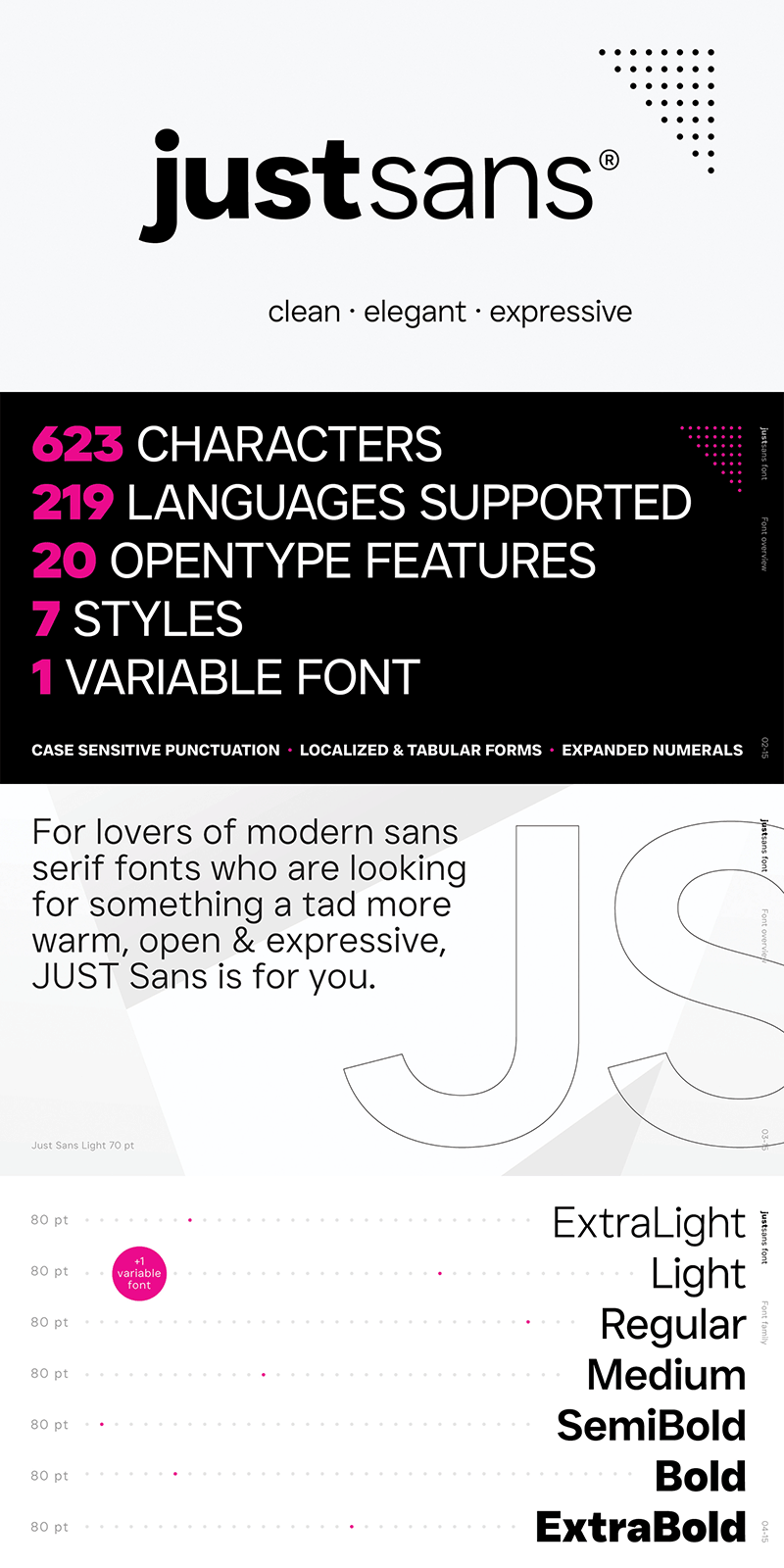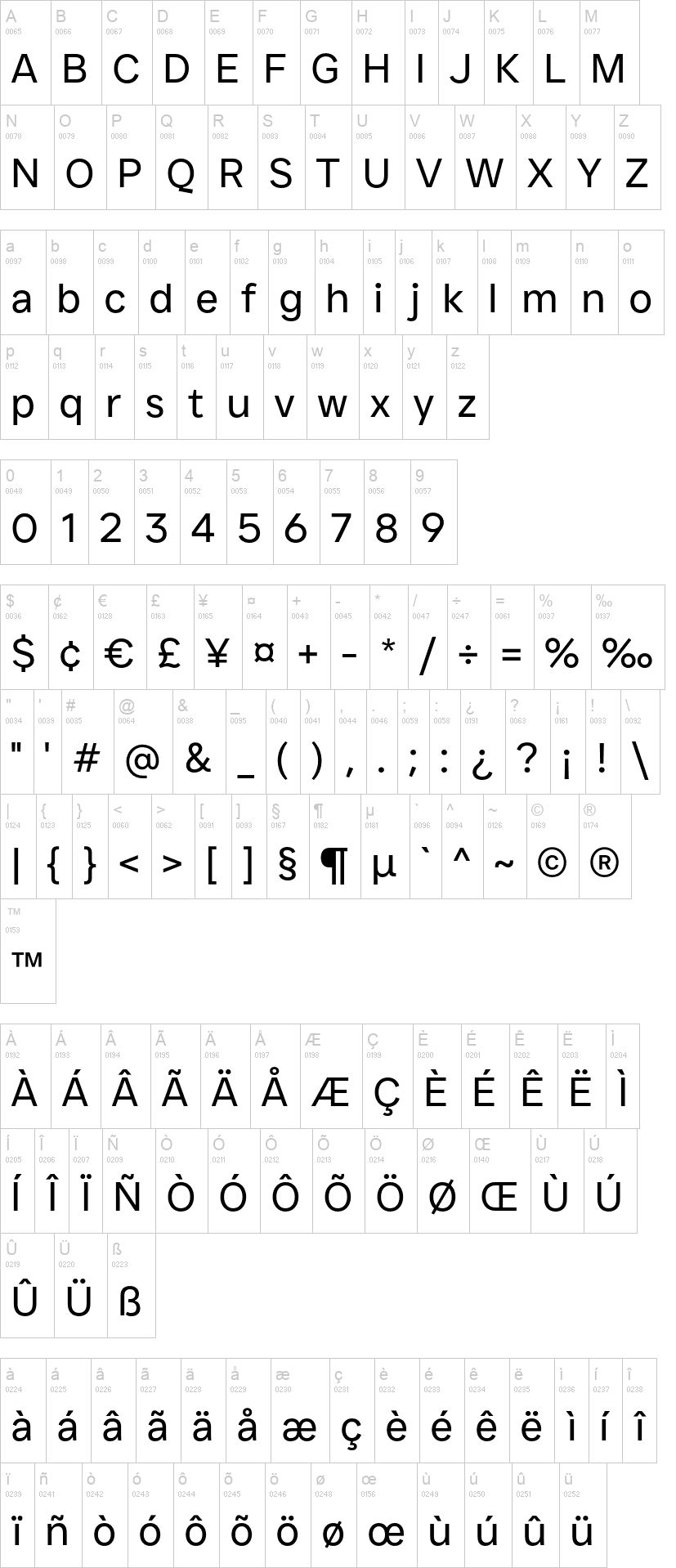
JUST Sans ExBold.otfNote of the authorJUST Sans is a highly versatile clean minimal typeface with endearing, modernist warmth, geometric legibility, and a distinctive friendly bite.